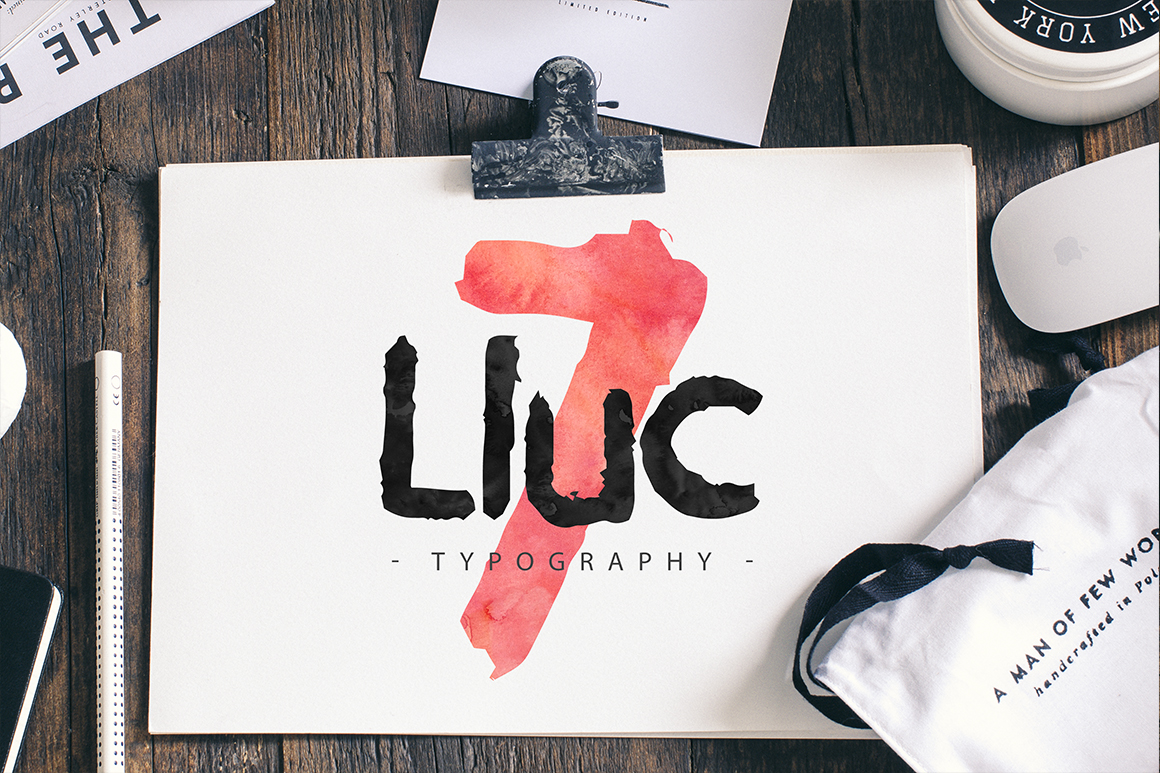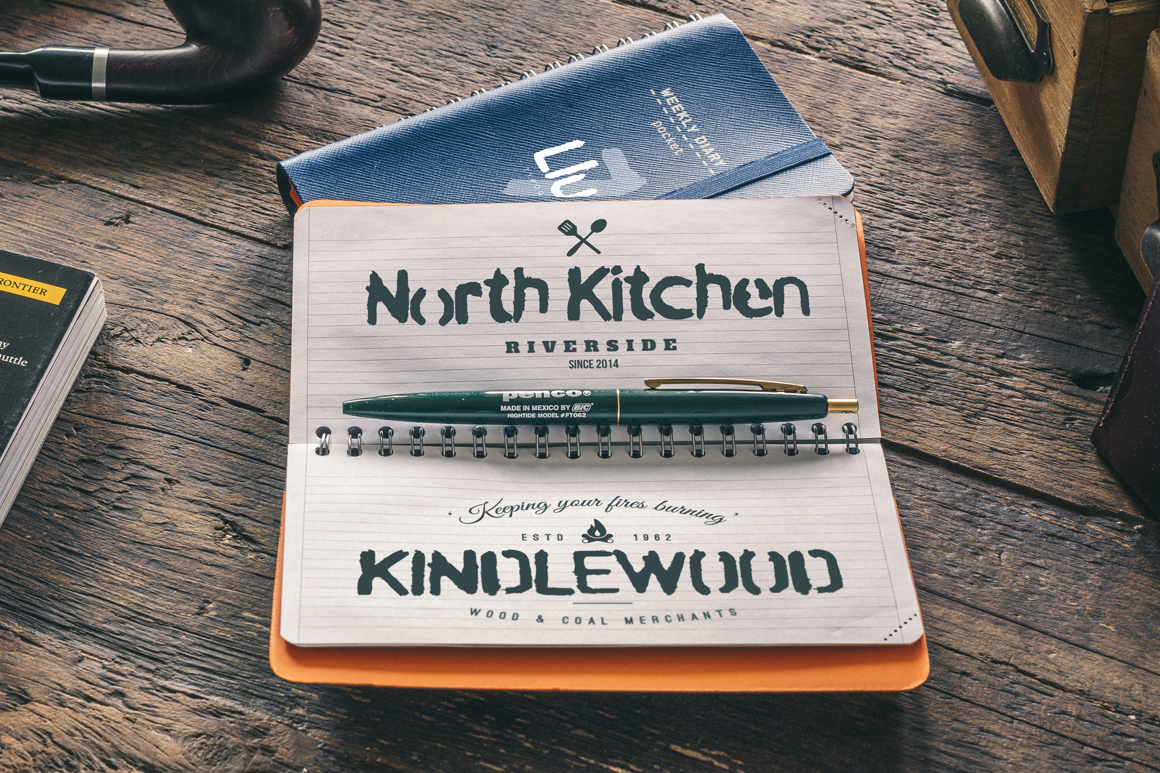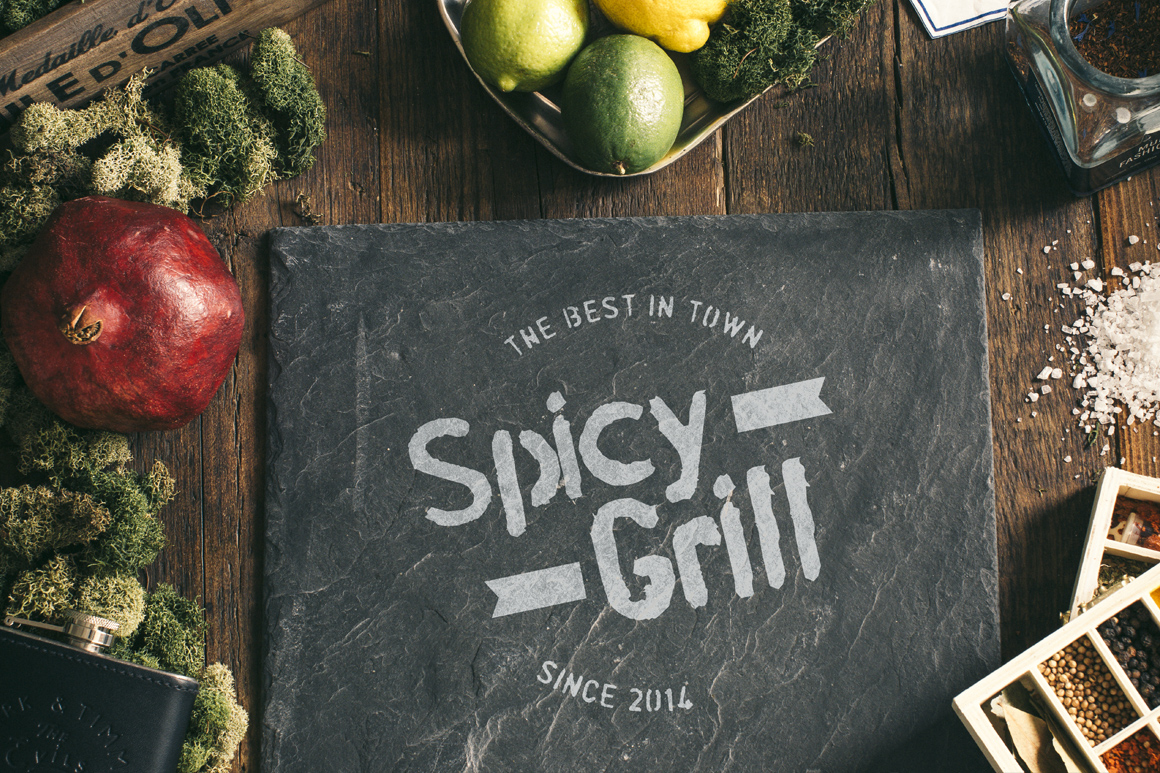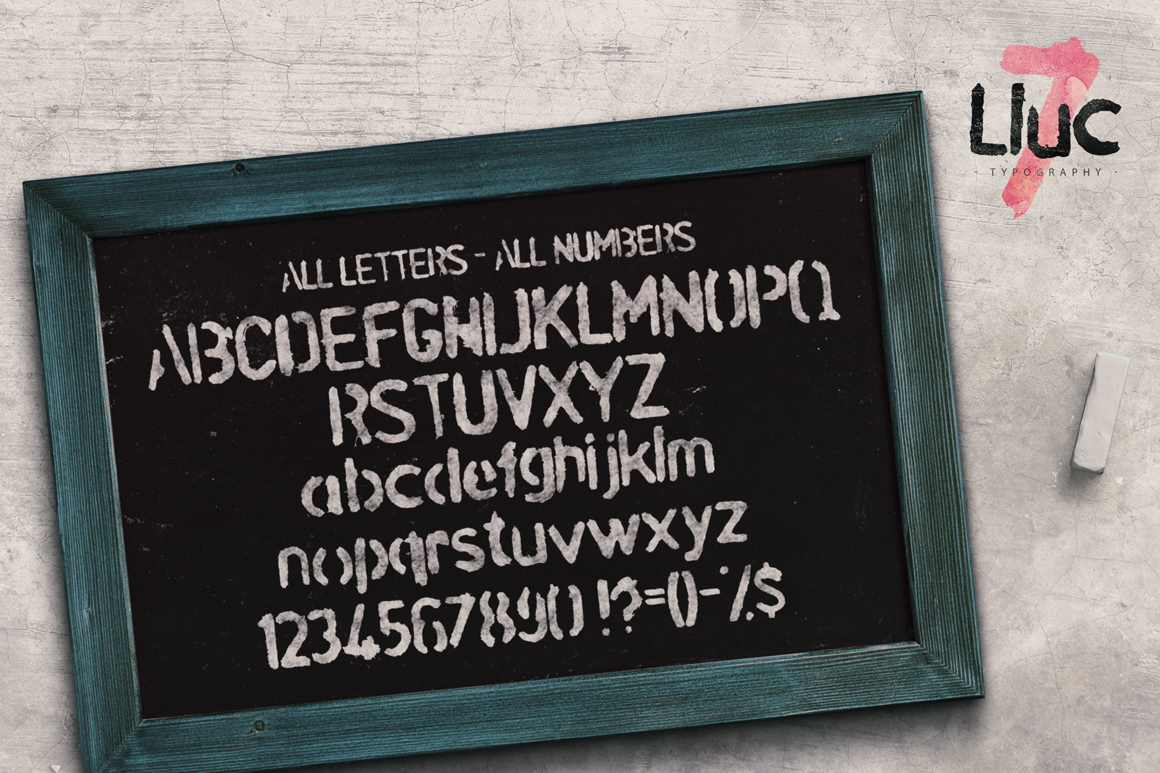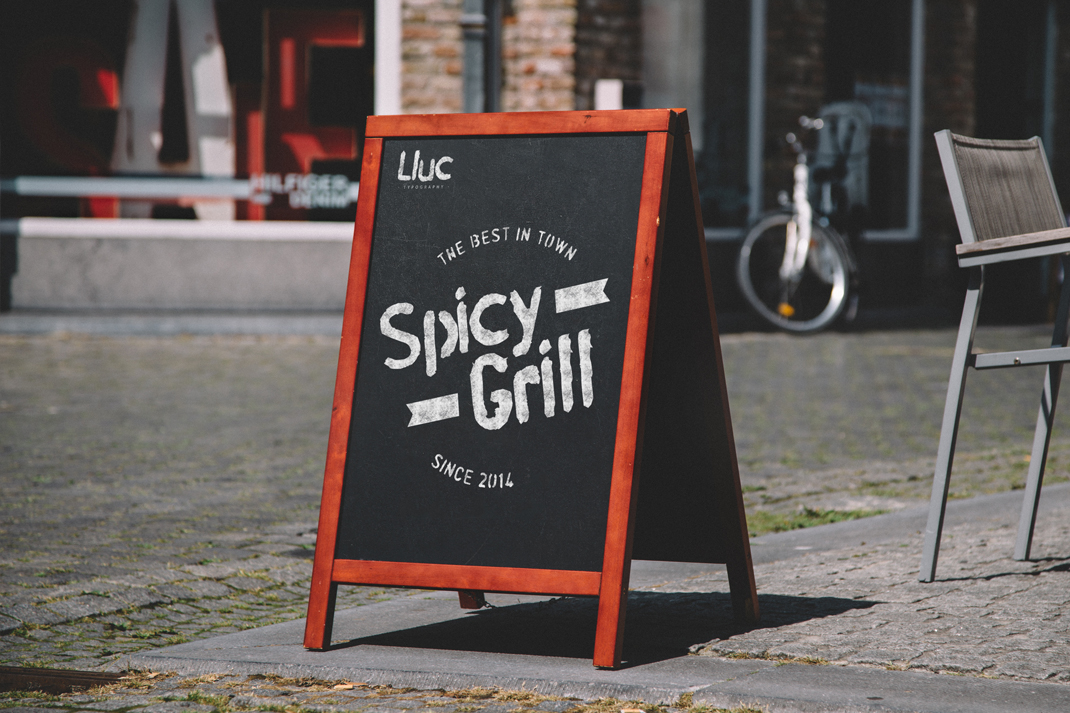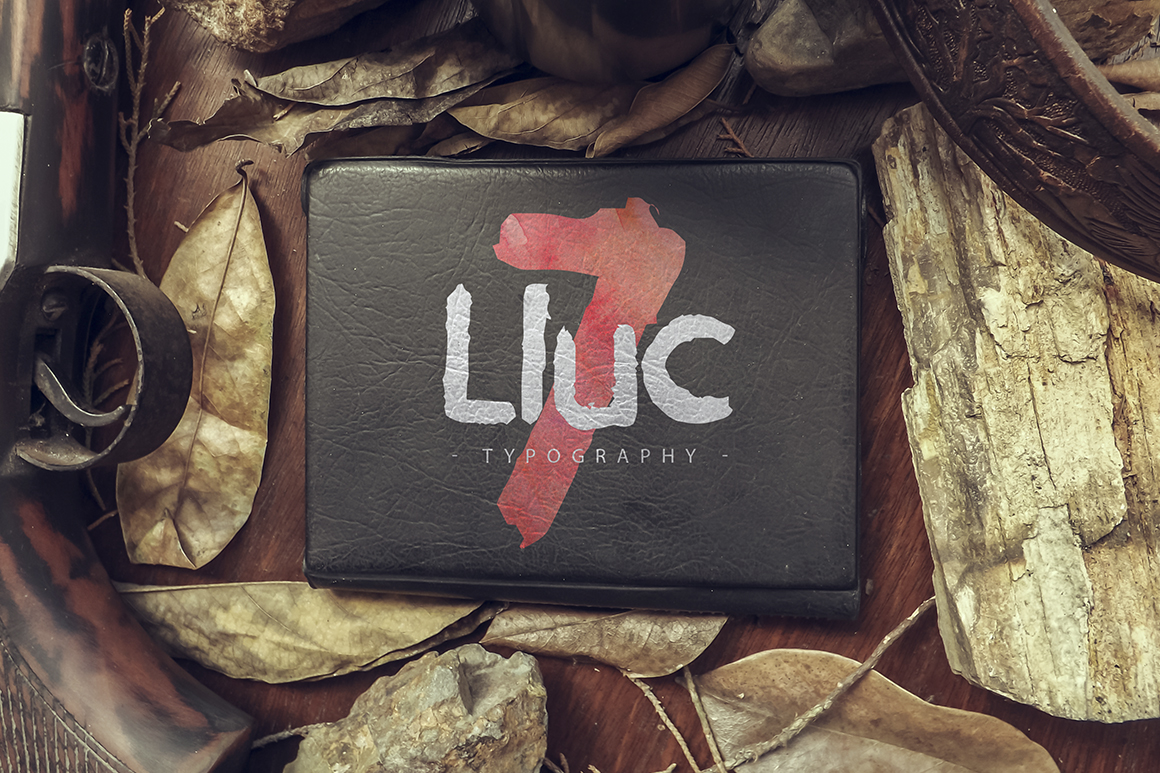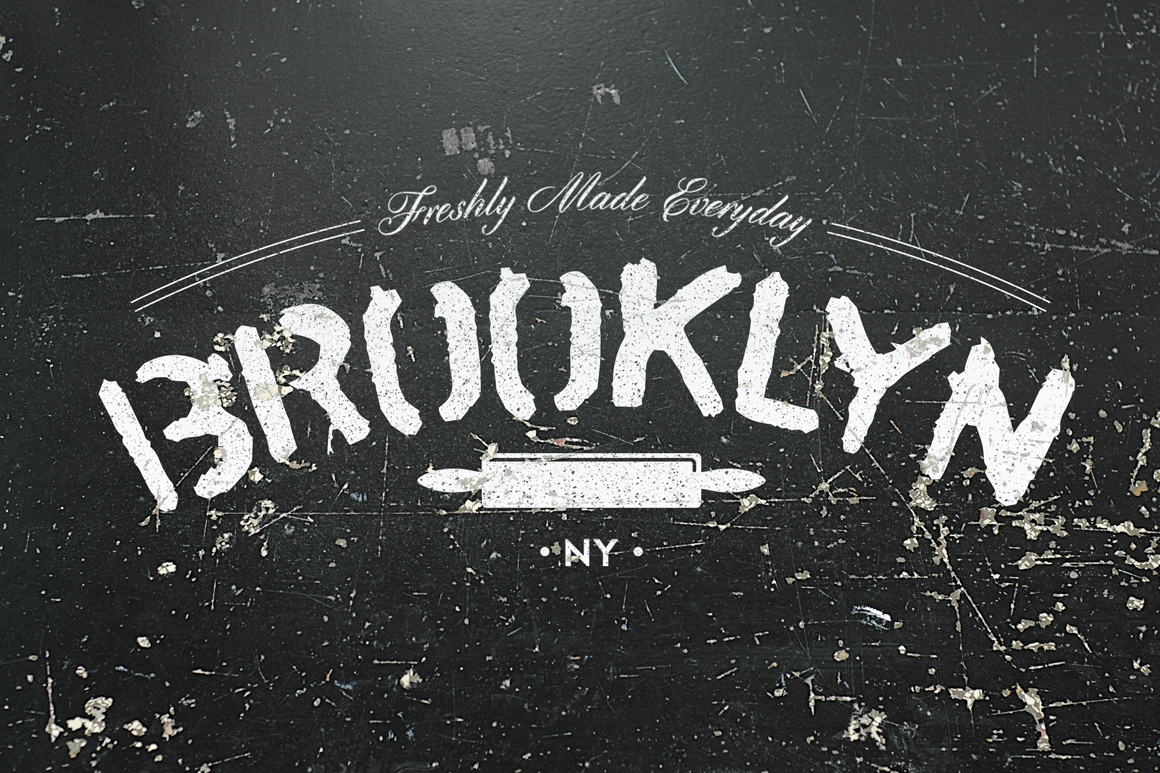
HomeScript FontsLluc Font Script Fonts Lluc Font FacebookXPinterestWhatsApp Lluc Font Poster 2 Lluc Font Poster 3 Lluc Font Poster 4 Lluc Font Poster 5 Lluc Font Poster 6 Lluc Font Poster 7 About Lluc Font Lluc is a unique font with a grungy and a bit of a vintage feel. DOWNLOAD ON CREATIVE FABRICAThis font is sold and delivered by Creative Fabrica. Font Canyon may earn a commission if you buy through this link. People also explored Berttang Sella Font Forestor Font Bea Sallad Font Good Boy Font Amonx Font Dessert Font Anttane Font Edwarstile Signature Font 269 0 TagsLluc Font Previous articleMocka FontNext articleLatinbrush Font LEAVE A REPLY Cancel reply Comment: Please enter your comment! Name:* Please enter your name here Email:* You have entered an incorrect email address! Please enter your email address here Website: Save my name, email, and website in this browser for the next time I comment. Personal Use Free Barokah Personal Use Free Read more about this font Shelly Personal Use Free Read more about this font Aragon Personal Use Free Read more about this font Kanza Personal Use Free Read more about this font BLOG Free vs Paid Fonts: Why Investing in Premium Fonts Is Worth It Free vs Paid Fonts: Why Premium Fonts Are Worth It in 2025 The debate of free vs paid fonts continues in the design world. While... Transform Your Website: Elevate Your Typography with 7 Best Web Font Generators Best Fonts for YouTube Videos: Make Your Thumbnails Stand Out Free Fonts Risk: Why Free Fonts Can Be Dangerous for Designers